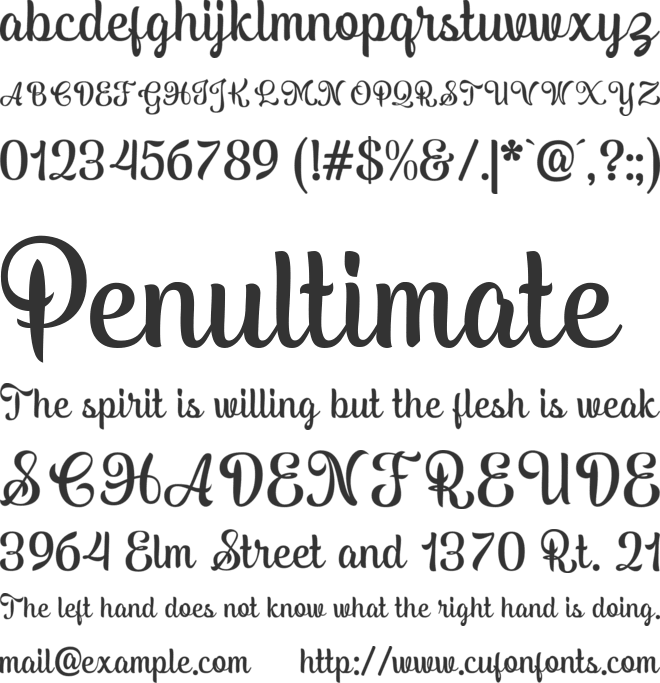
Aleman Script Font
Aleman Script is a modern stylistic display script font with simple and elegant swash and other typographic features. It could be nice for lettering, logo design, branding, and any design project. This font is PUA encoded which means you can access all of the amazing glyphs and ligatures with ease!
Aleman Script is Multilungual support (Latin Extended-A) covering Bosnian, Catalan, Czech, Danish, German, English, Spanish, Estonian, Finnish, French, Irish, Croatian, Hungarian, Icelandic, Italian, Lithuanian, Latvian, Maltese, Dutch, Norwegian, Polish, Portuguese, Slovak, Slovenian, Albanian, Swedish, Turkish